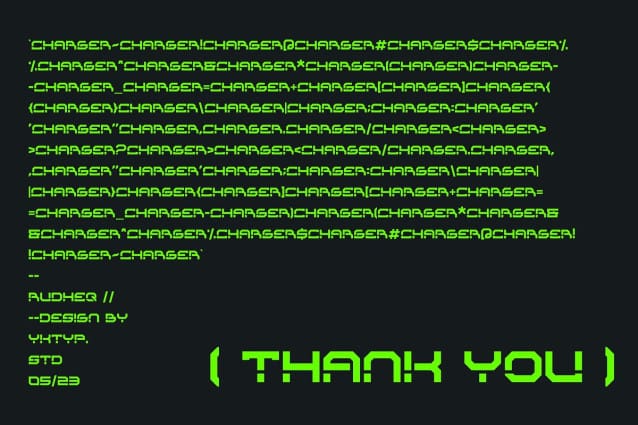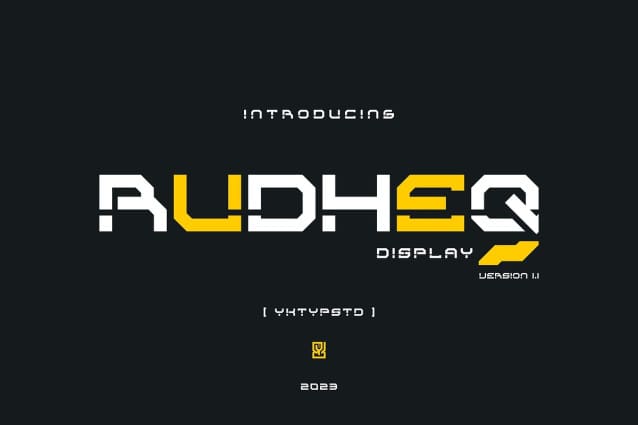
Rudheq Display Font
Rudheq Display Font a modern futuristic font that is as cool as it sounds. Rudheq brings a fresh, sophisticated feel to any project. Whether you’re working on a creative presentation, a poster/banner title for a promotion, logos, books, labels, packaging products or simply adding a touch of modernity to your project, this font has you covered.